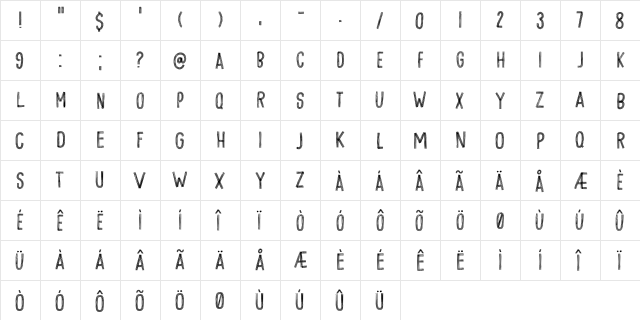
Goodie Bag Lines DEMO Regular
| Foundry | David Kerkhoff |
| Designer | David Kerkhoff |
Design Context for Goodie Bag Lines DEMO Typeface
Goodie Bag Lines DEMO is a composed and adaptable typeface that performs quietly and consistently across a wide range of design contexts.